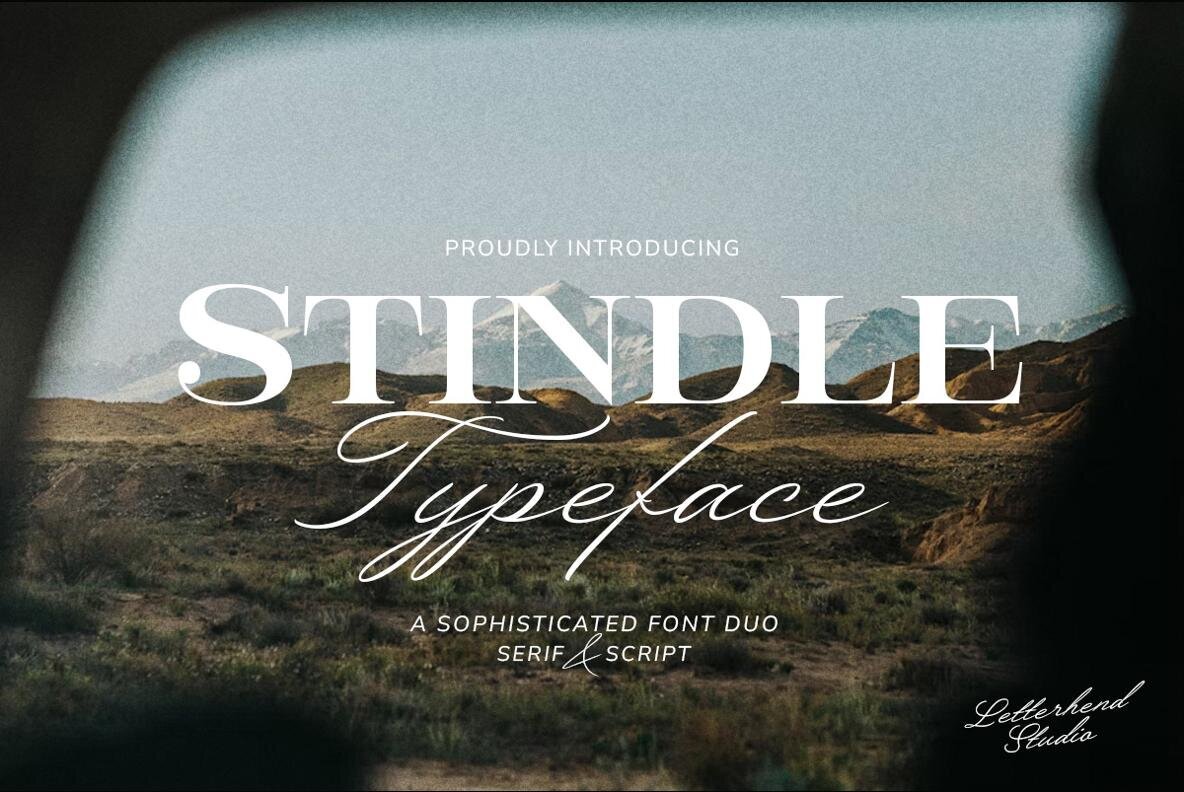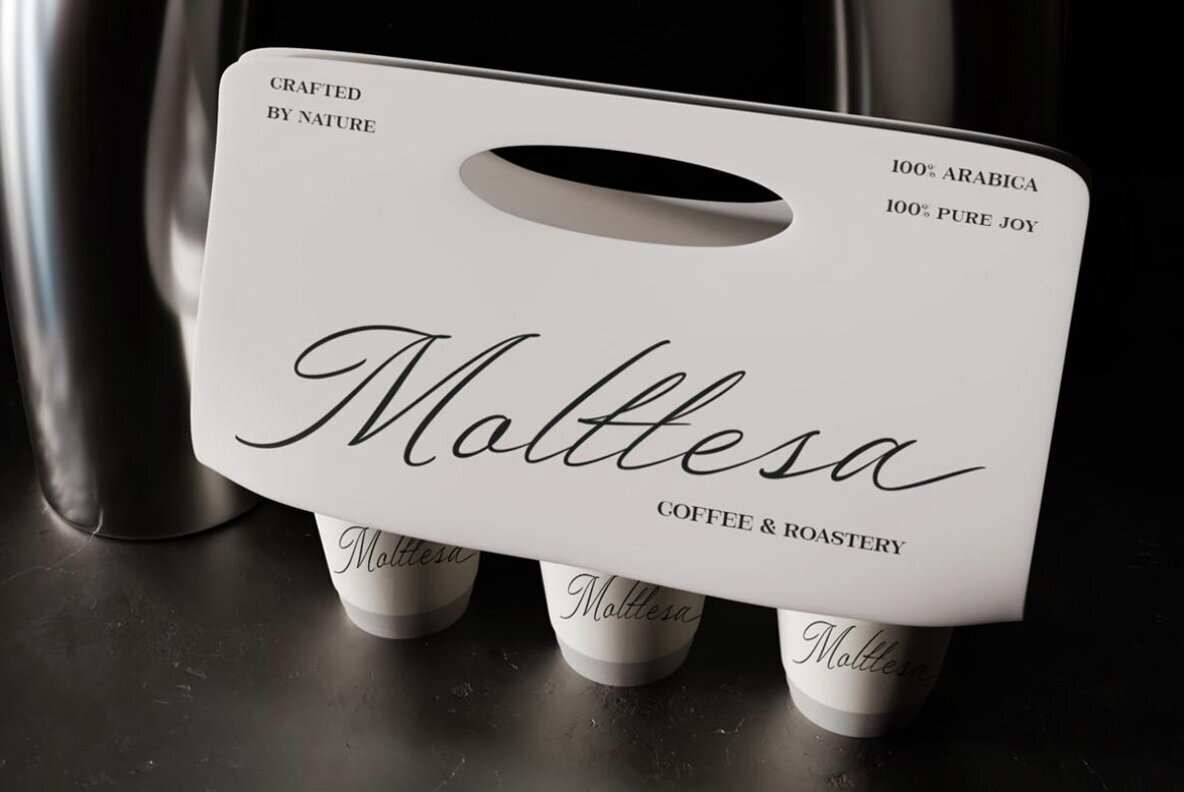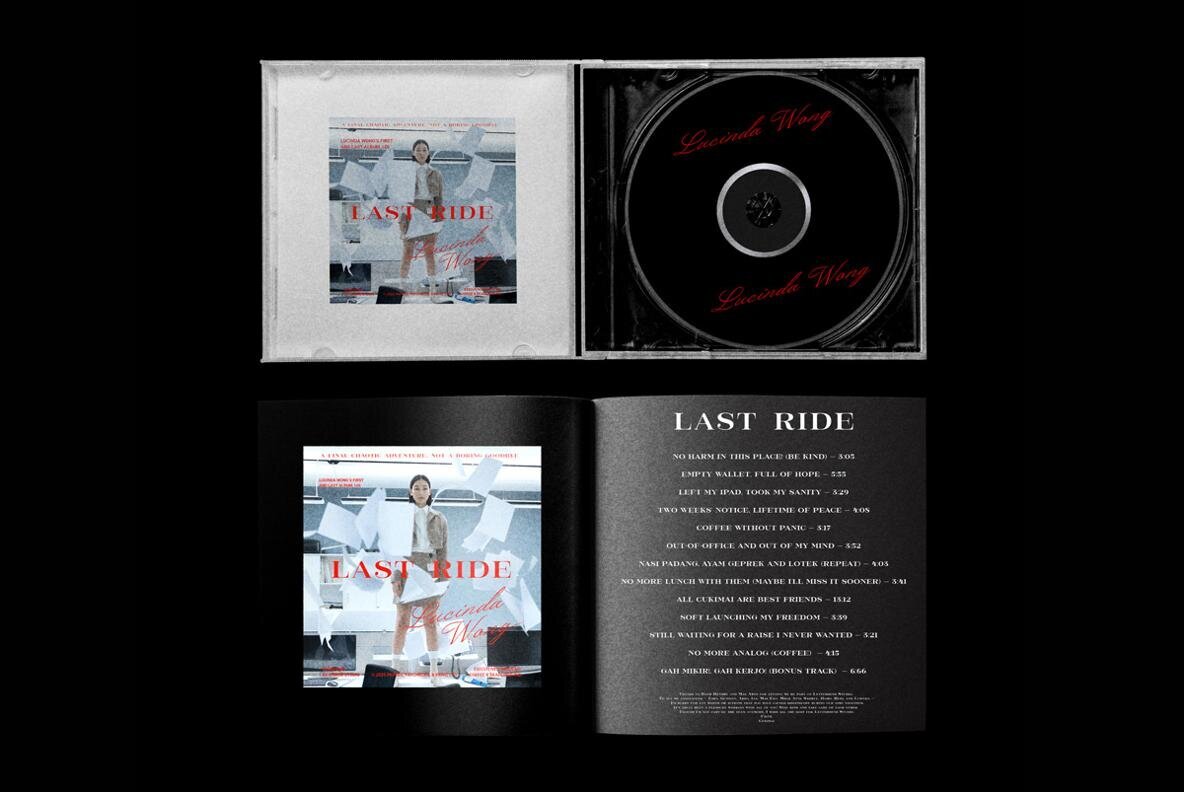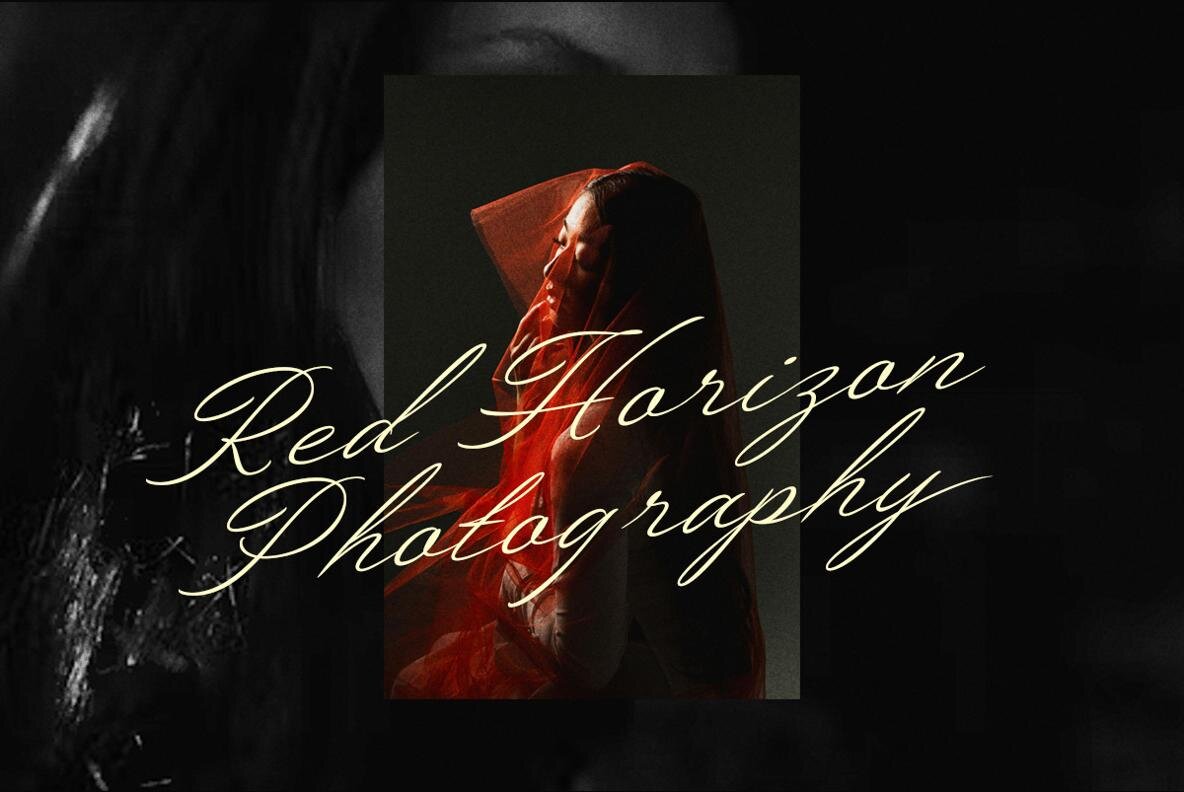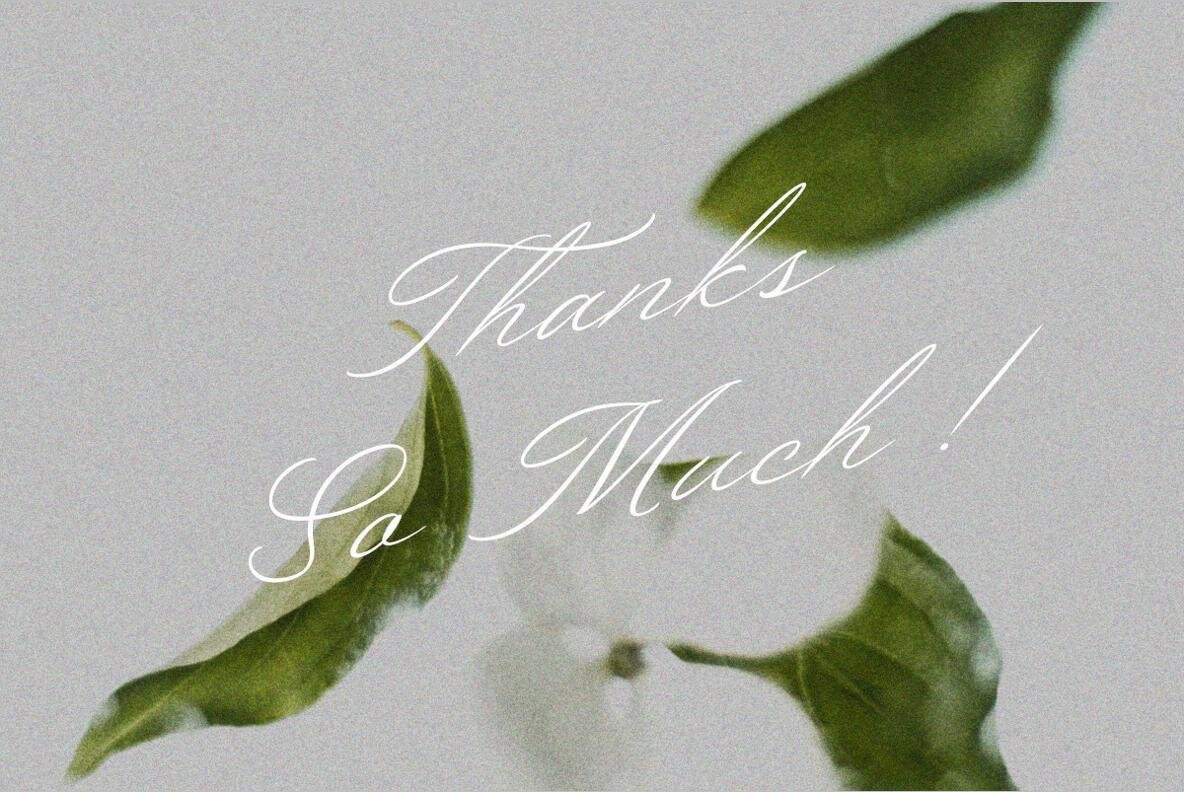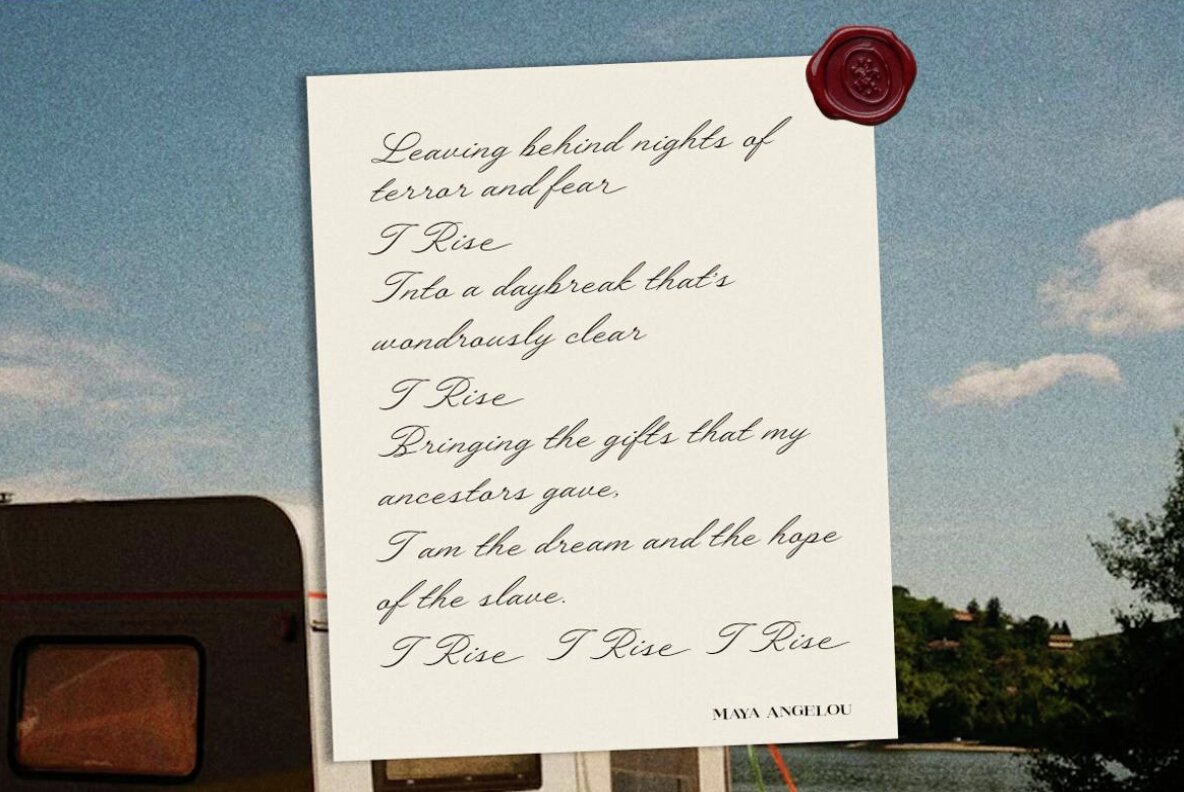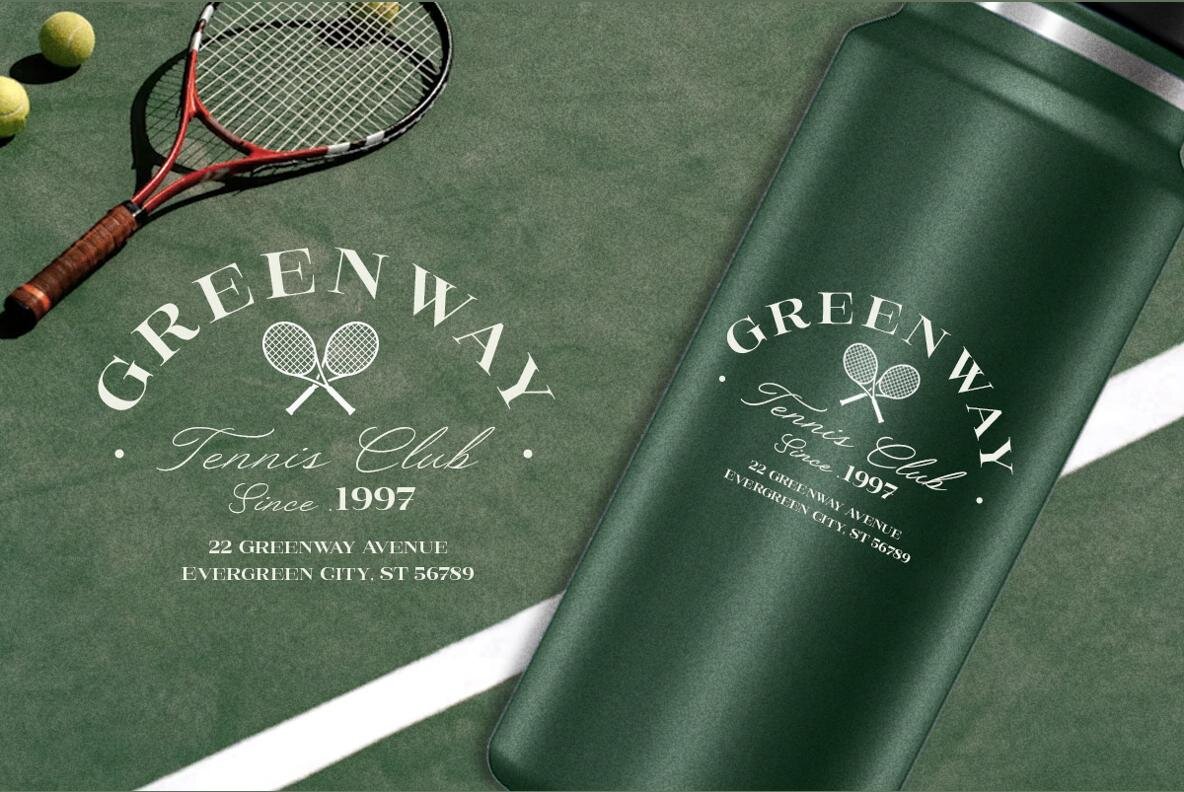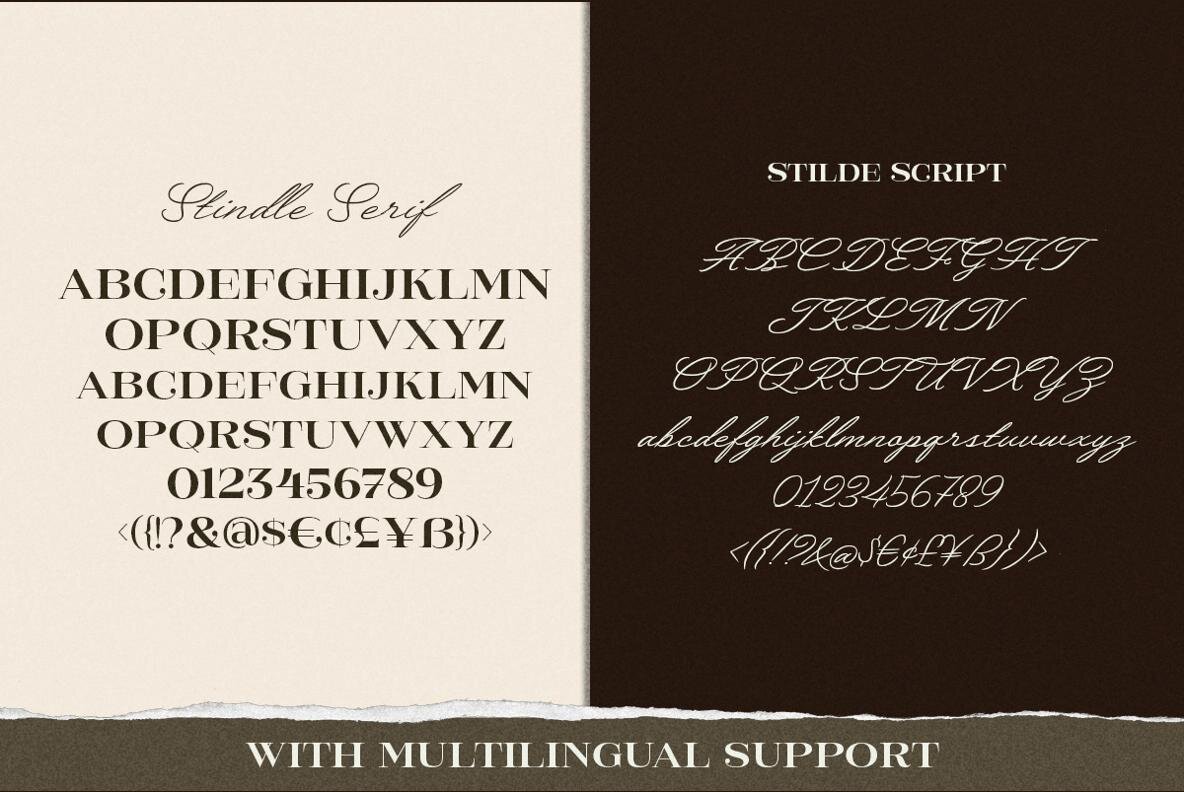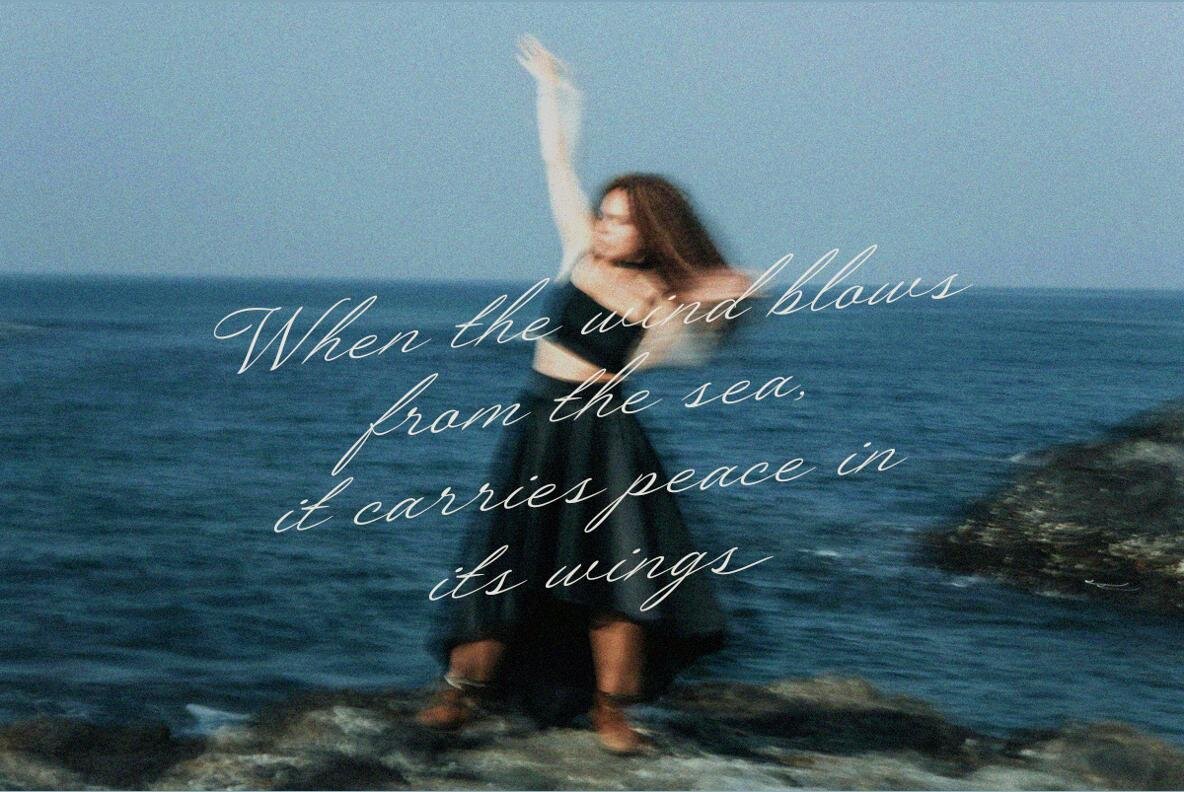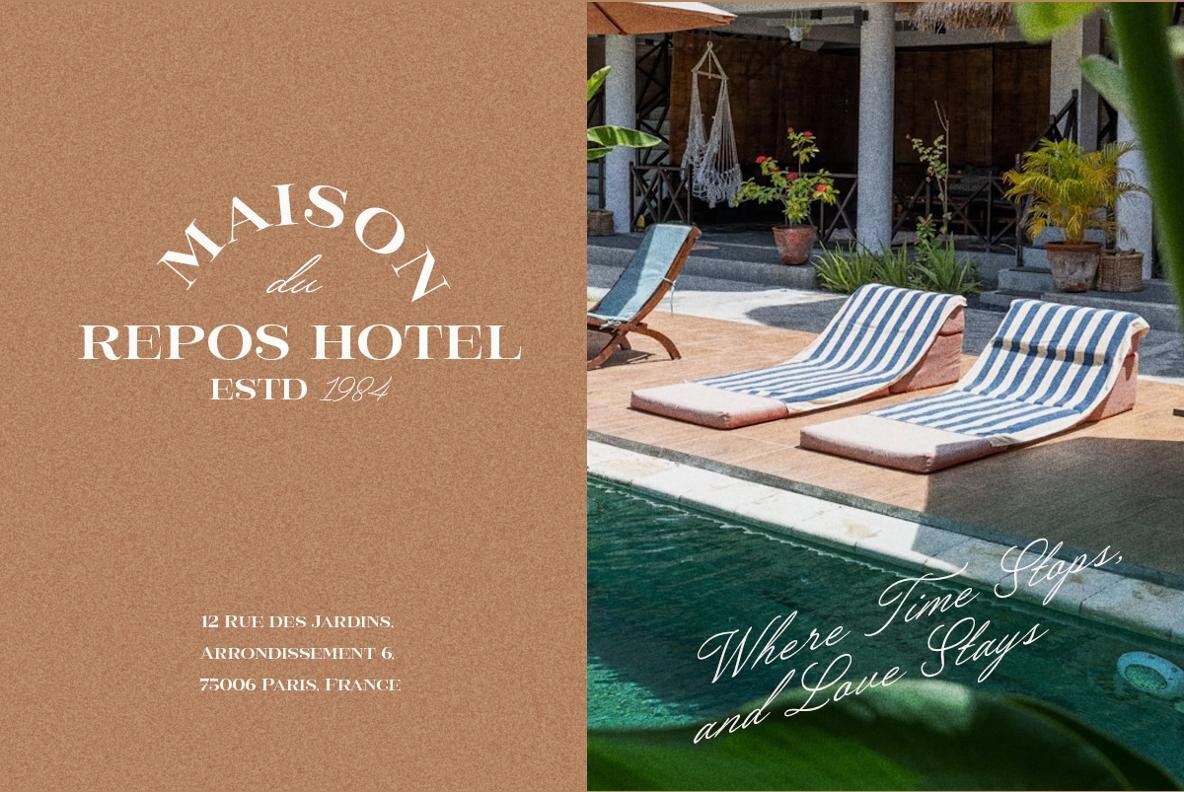
Stindle Font
The Stindle Typeface is a sophisticated font duo that seamlessly merges classic serif strength with elegant script fluidity. The serif style evokes a sense of sophistication and luxury, making it ideal for editorial layouts, branding, and packaging. Meanwhile, the script counterpart adds an element of graceful, handwritten charm, producing a timeless harmony that balances professionalism with artistry. Features:Stindle Typeface: A Refined Font Duo